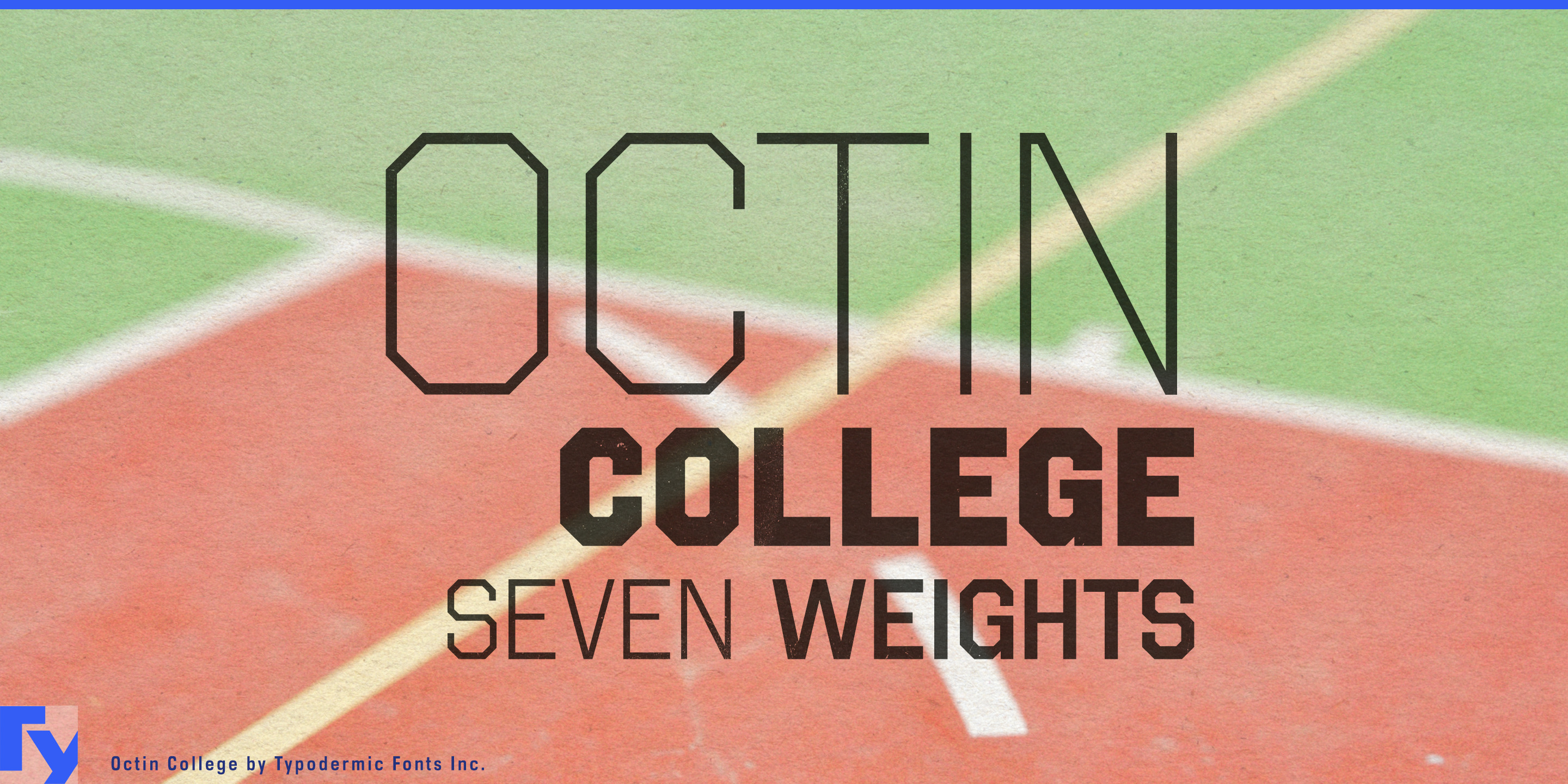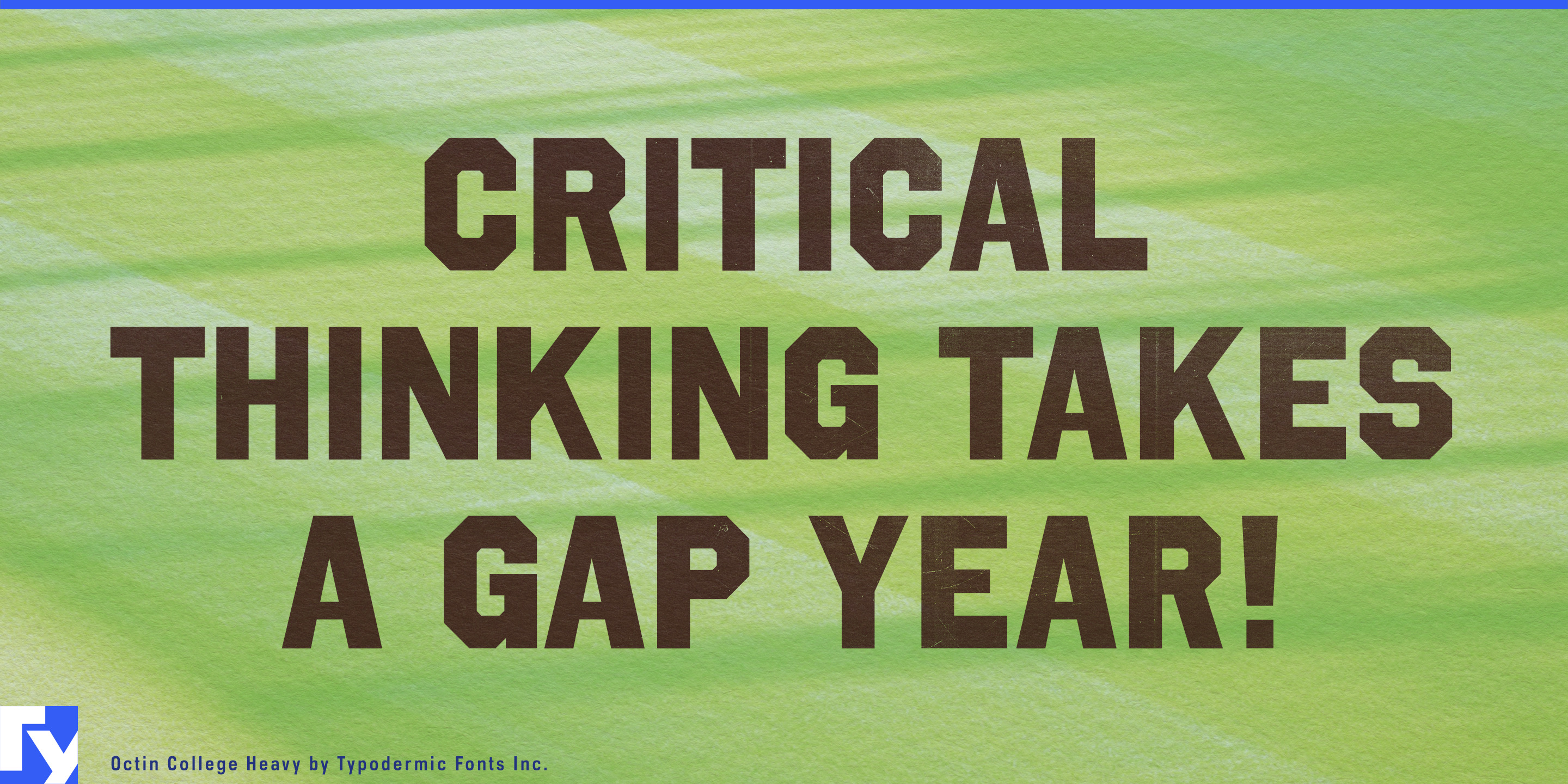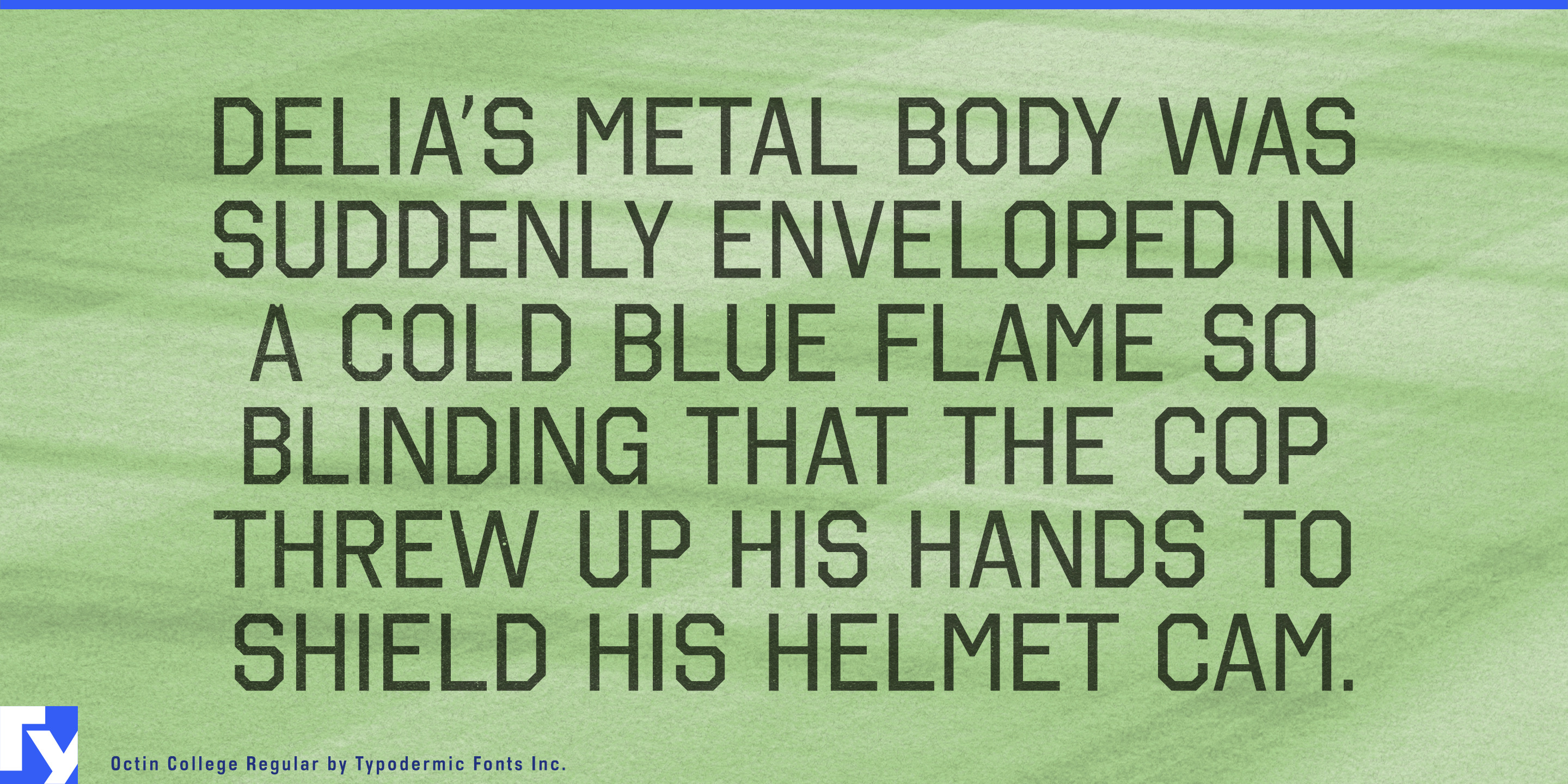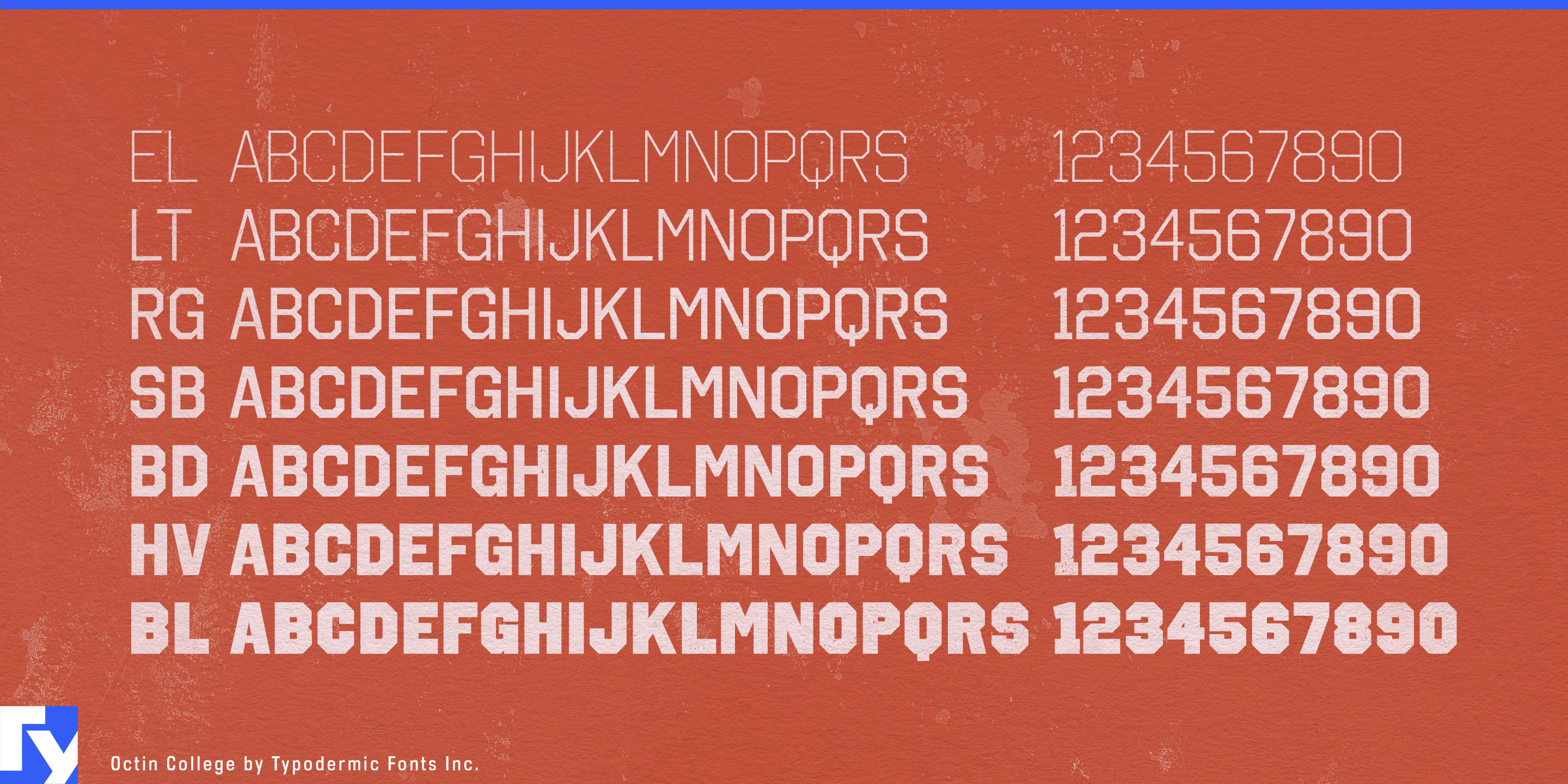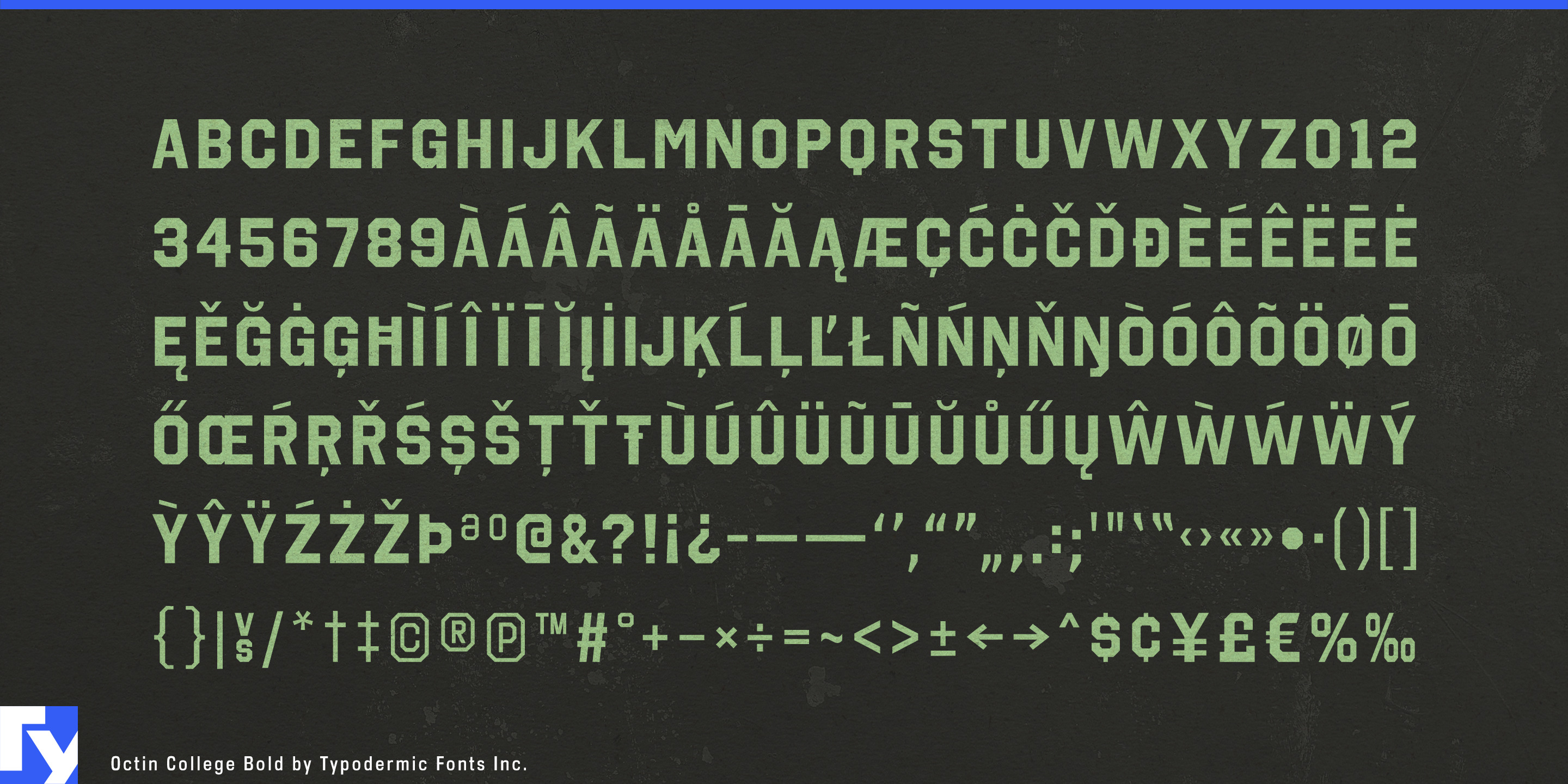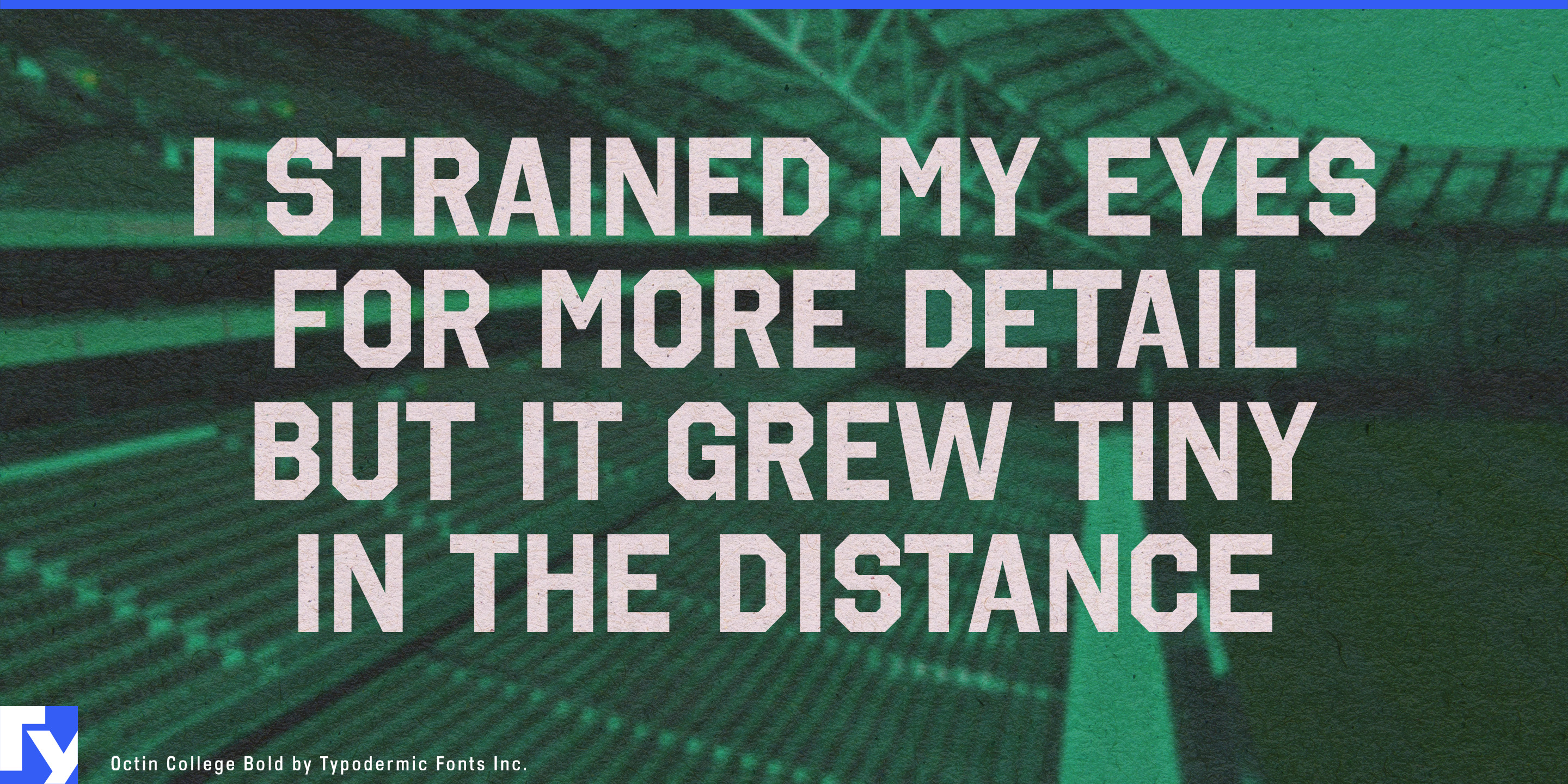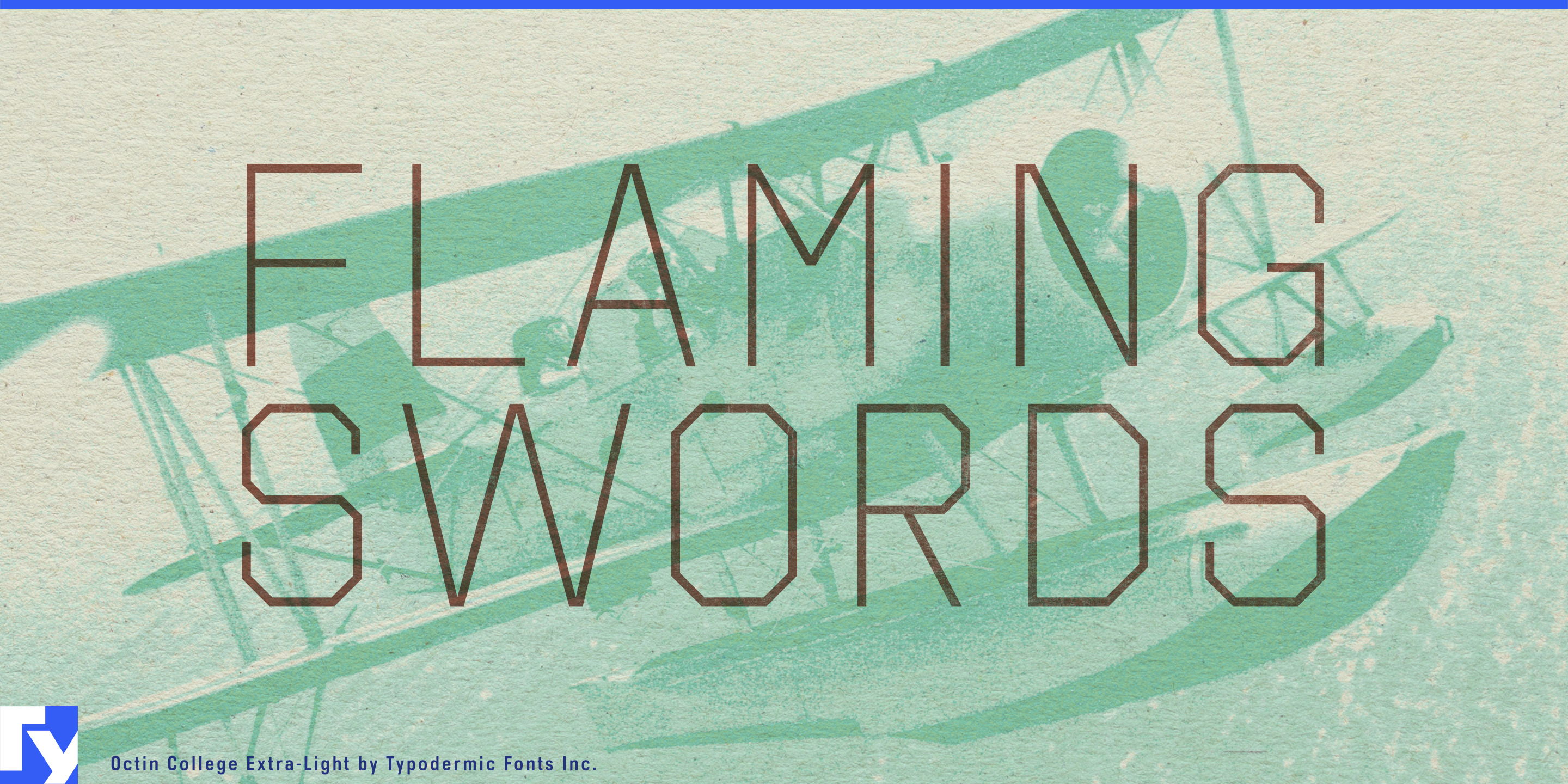
Octin College
Octin College takes the bold, blocky style of classic collegiate lettering and turns it into a versatile, modern toolkit. With seven weights from light to black, it moves easily between refined headlines and hard-hitting statements. The lighter cuts feel polished and academic; the heavier ones deliver the power of varsity sports branding or institutional signage.
Its square, confident forms make it a natural for campus wayfinding, alumni magazines, athletic merch, research posters, or anything that calls for academic authority with a strong visual presence. Octin College supports a wide range of Latin-based languages, making it a solid choice for international projects as well. Join the athletic department with Octin Sports, explore criminology with Octin Prison, enroll in military science with Octin Stencil, major in history with Octin Vintage, or express yourself in visual arts with Octin Spraypaint.
Reliable, legible, and instantly recognizable, Octin College isn’t just a nod to tradition. It’s a lasting staple for designers who need typography that projects strength, credibility, and a touch of campus spirit.